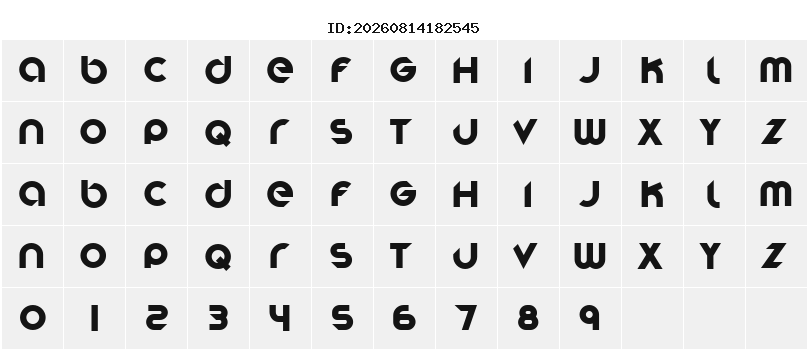
Stereofunk Preview
• Font Name: Stereofunk
• Font Style: Display
• Designer: Alan Brown
• Manufacturer: Alan Brown
About Stereofunk.ttf
Stereofunk.ttf is a modern, elegant sans-serif font designed for ultimate readability and visual harmony. Perfect for branding, headlines, web design, and print materials.